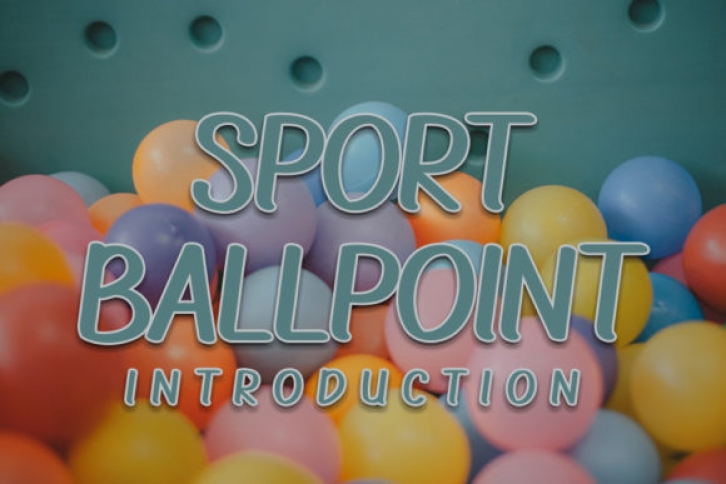
Sport Ballpoint is a beautiful and friendly display font. Its natural and well balanced style makes it incredibly fitting to a large pool of designs. The only limit is your imagination!